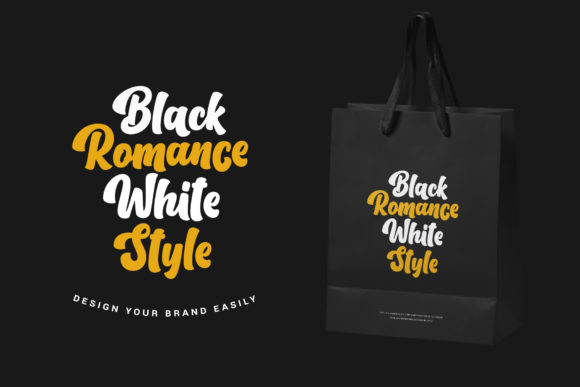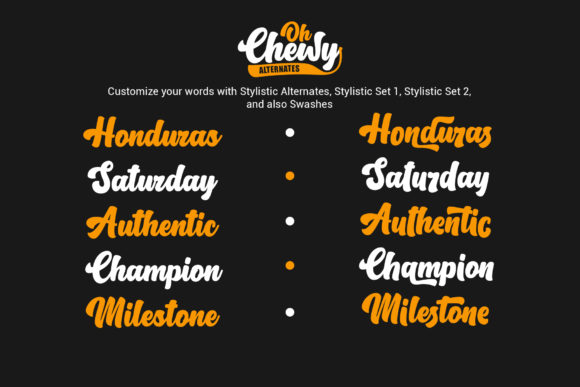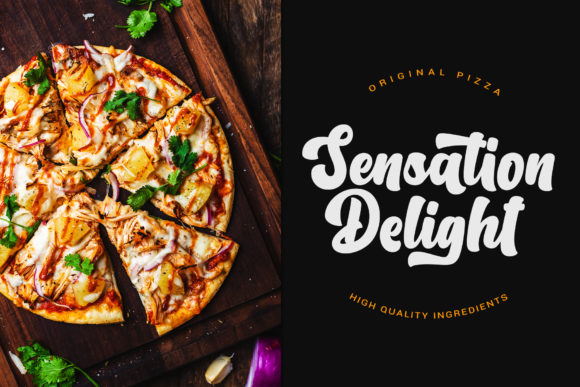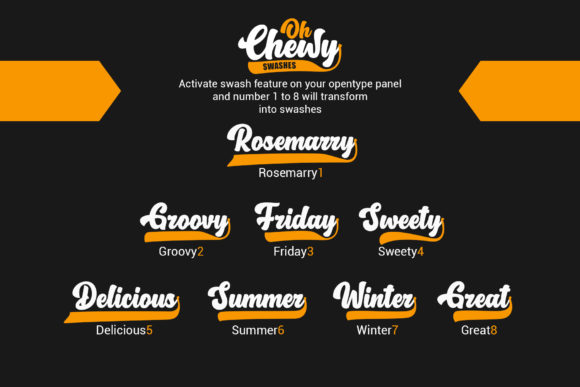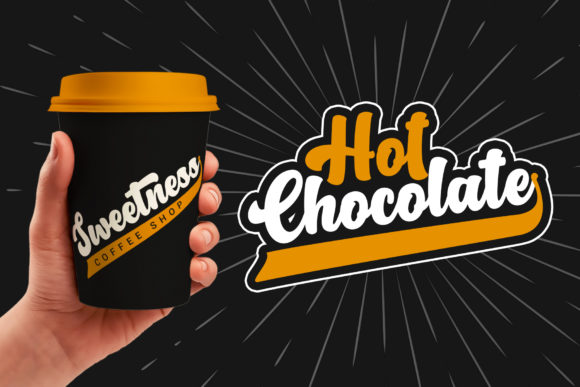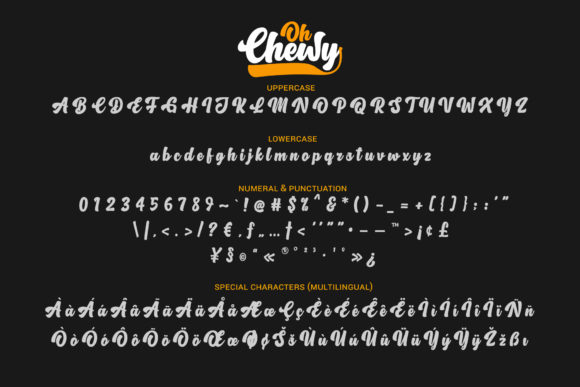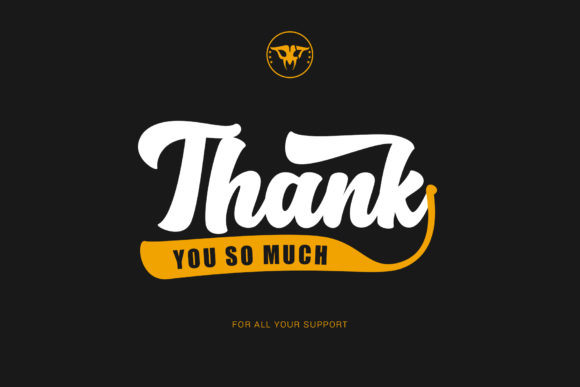
Oh Chewy Font
Oh Chewy is a sweet and bold script font with alternates and lovely swashes. It has an incredible vintage aesthetic. Use it to add that special retro touch to any design idea you can think of!